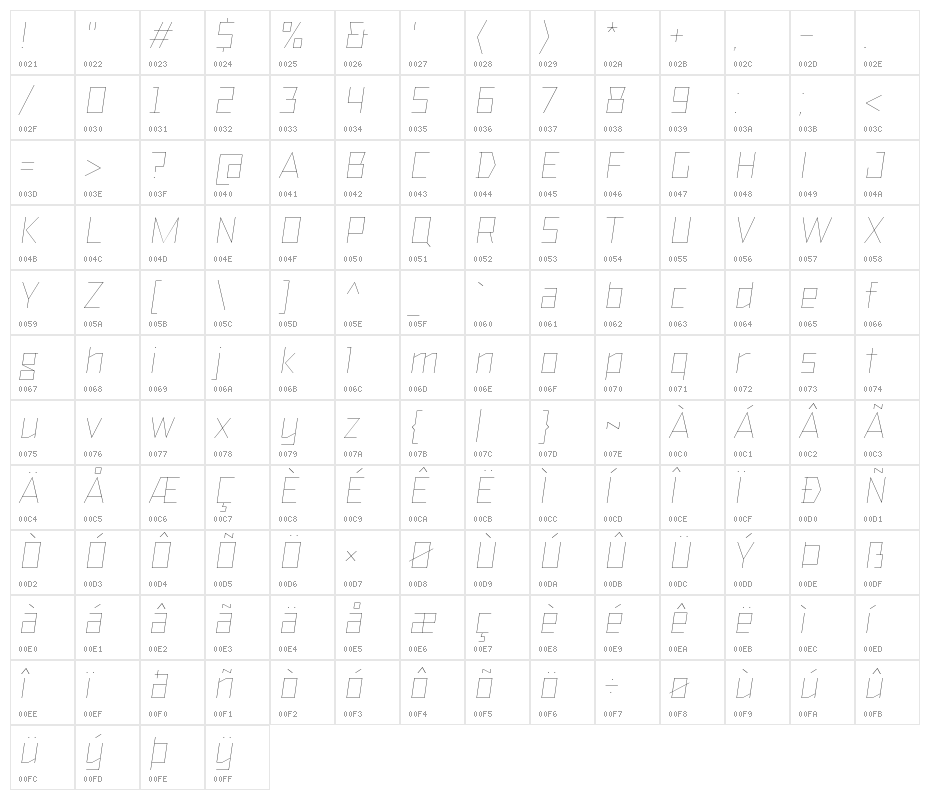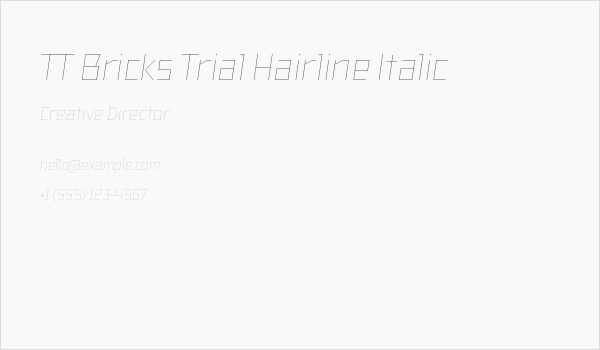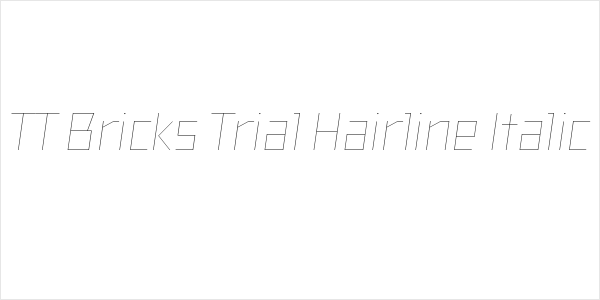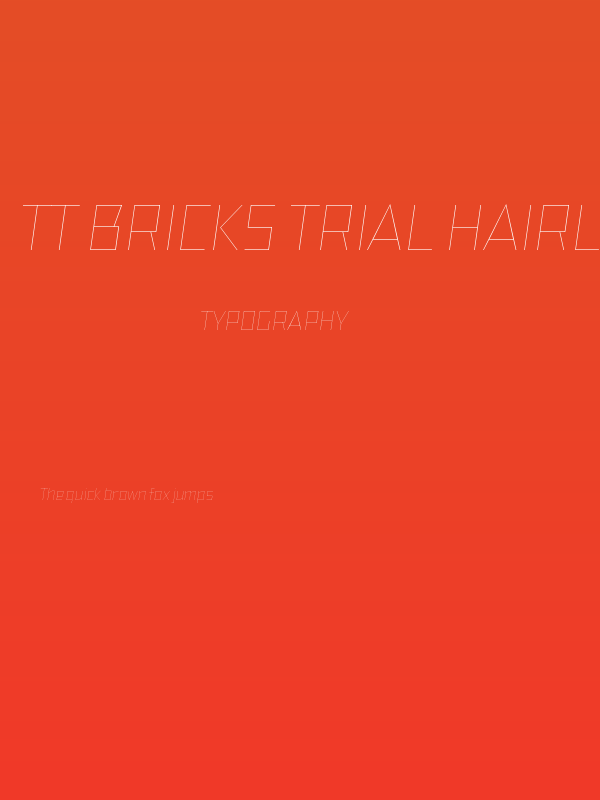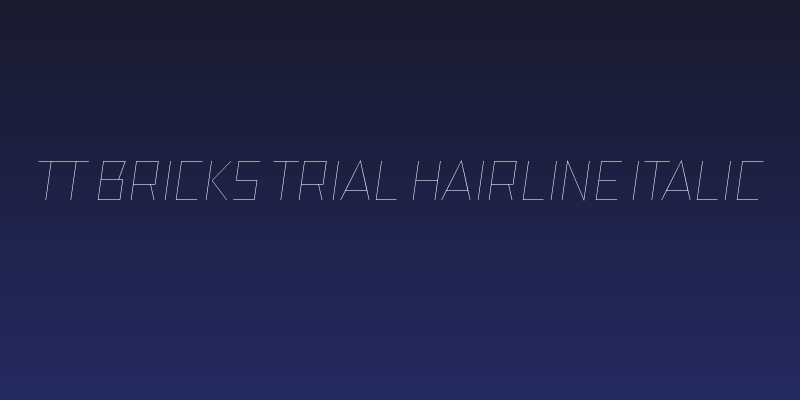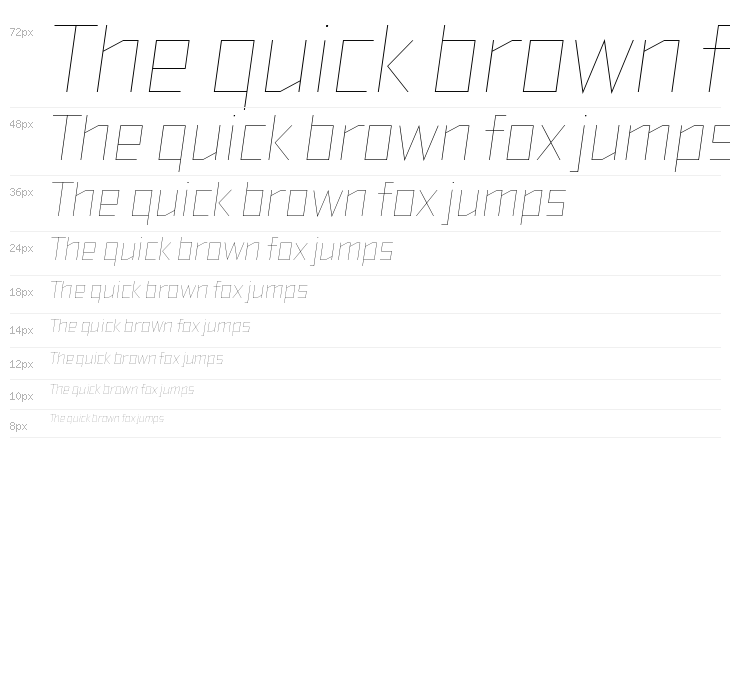
TT Bricks Trial Hairline Italic Font
TT Bricks Trial Hairline Italic Description
This font features a sleek, geometric design with a distinct italic slant, giving it a modern and dynamic appearance. The characters are constructed with thin, precise lines, creating a hairline effect that emphasizes minimalism and elegance. The angular shapes and sharp edges contribute to a futuristic and technical aesthetic, making it suitable for contemporary design projects. The font maintains consistent proportions and spacing, ensuring readability while retaining its unique style.
| Use Case | Logos, Headlines, Digital interfaces |
| Proposed Projects | Ideal for tech branding, modern posters, digital interfaces, and minimalist design projects. |